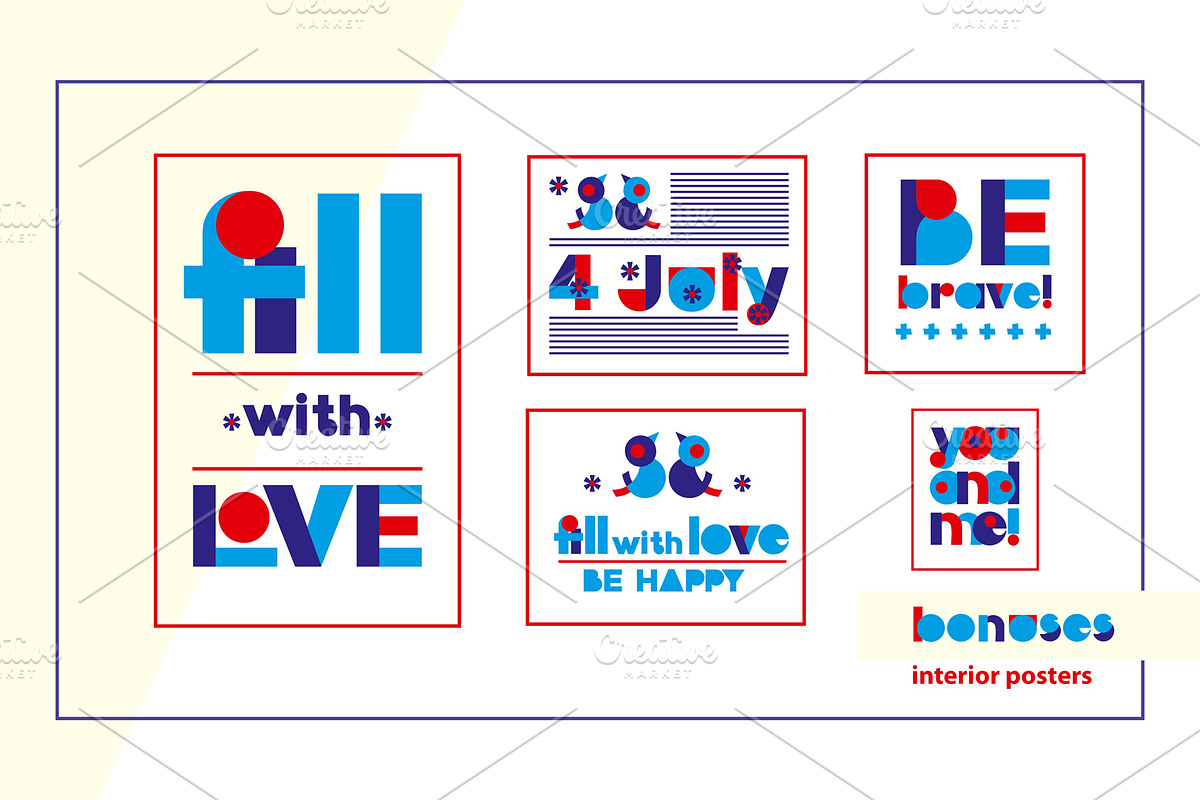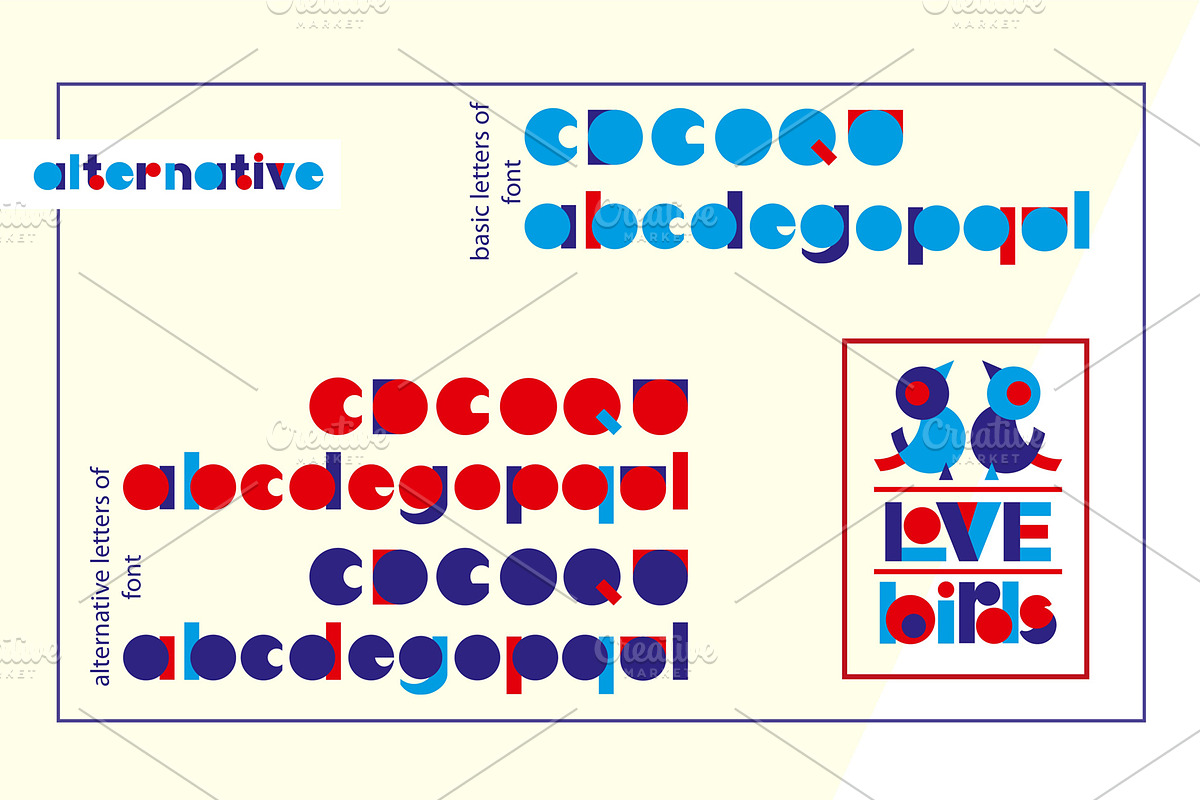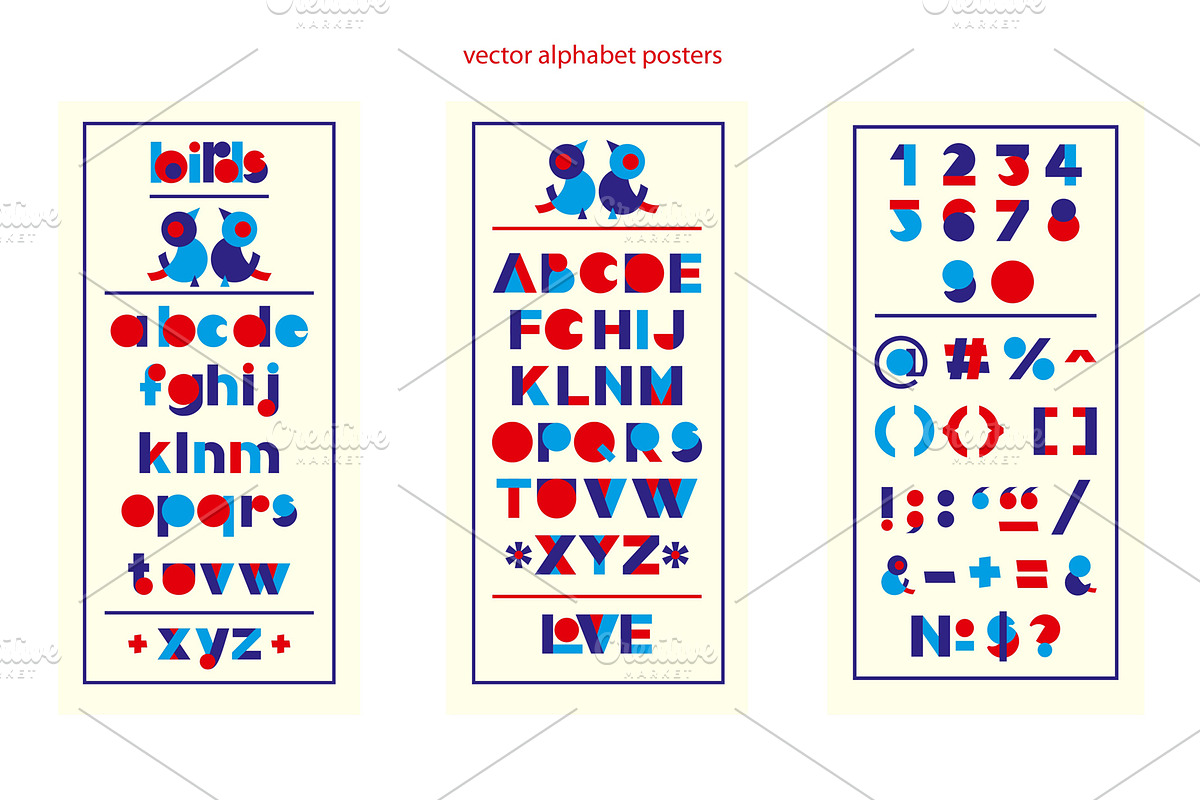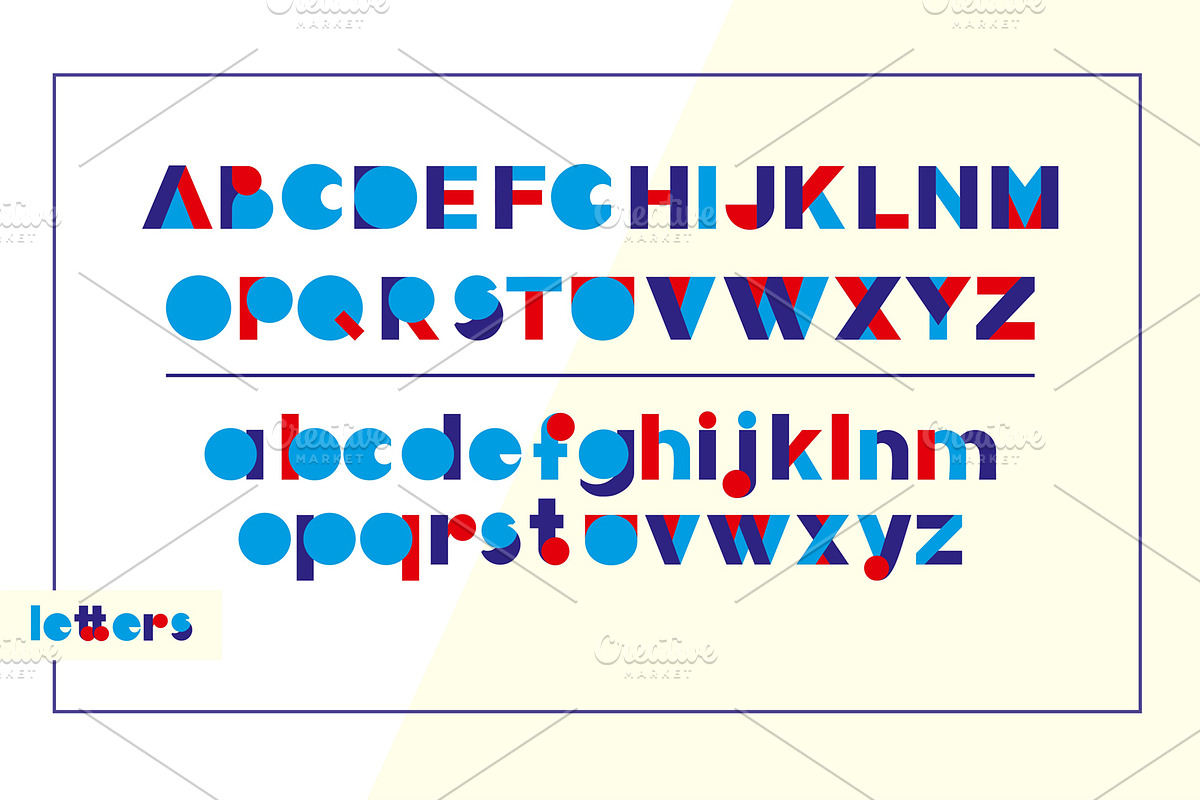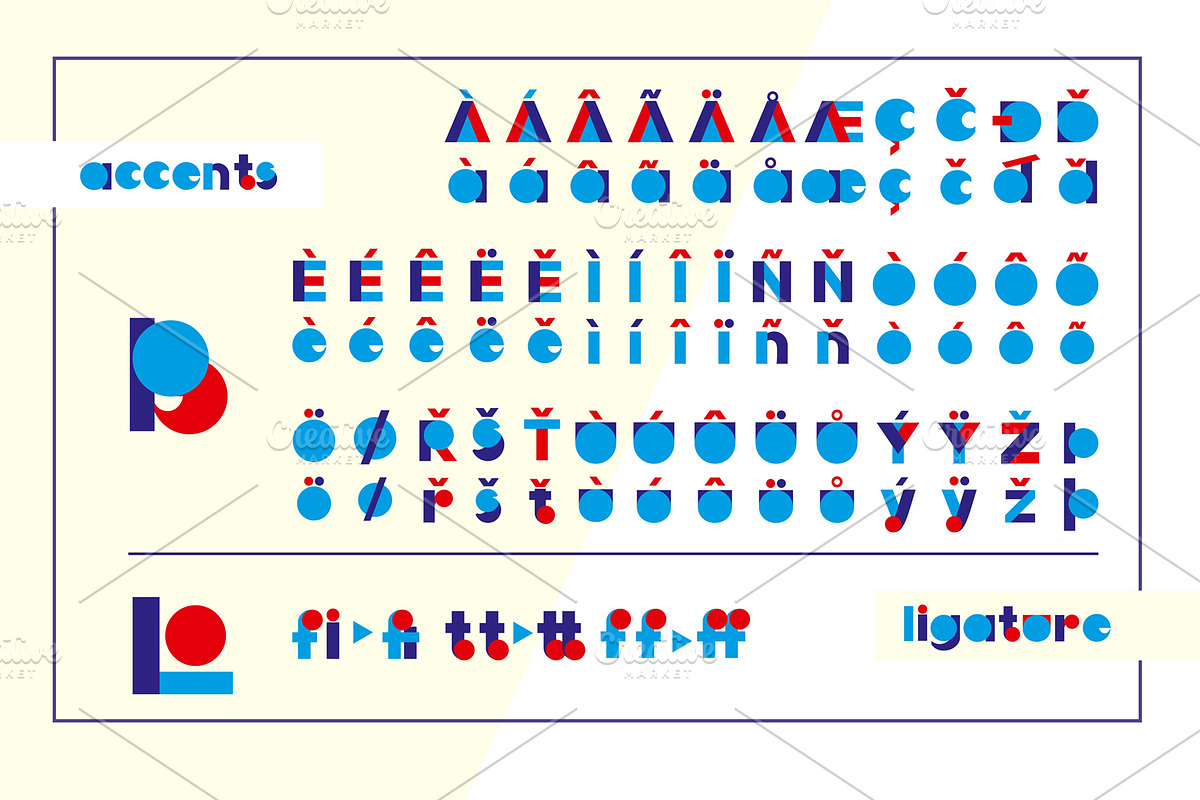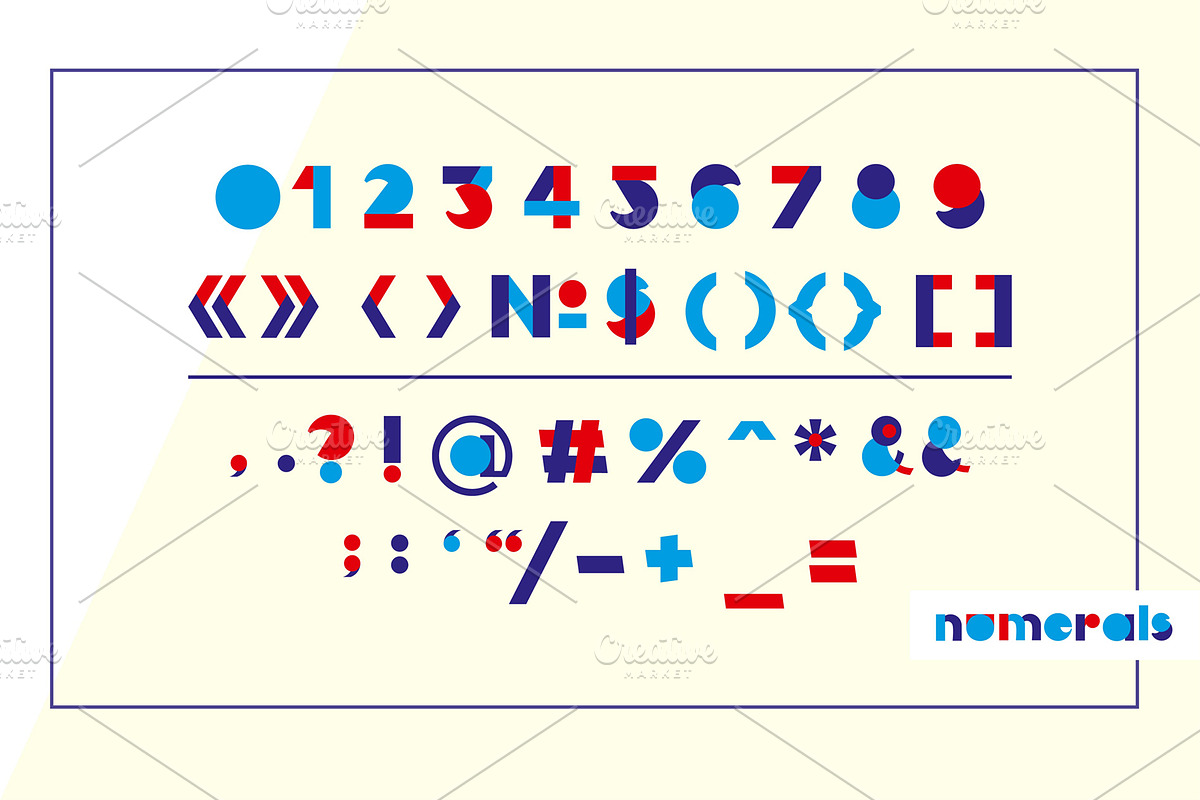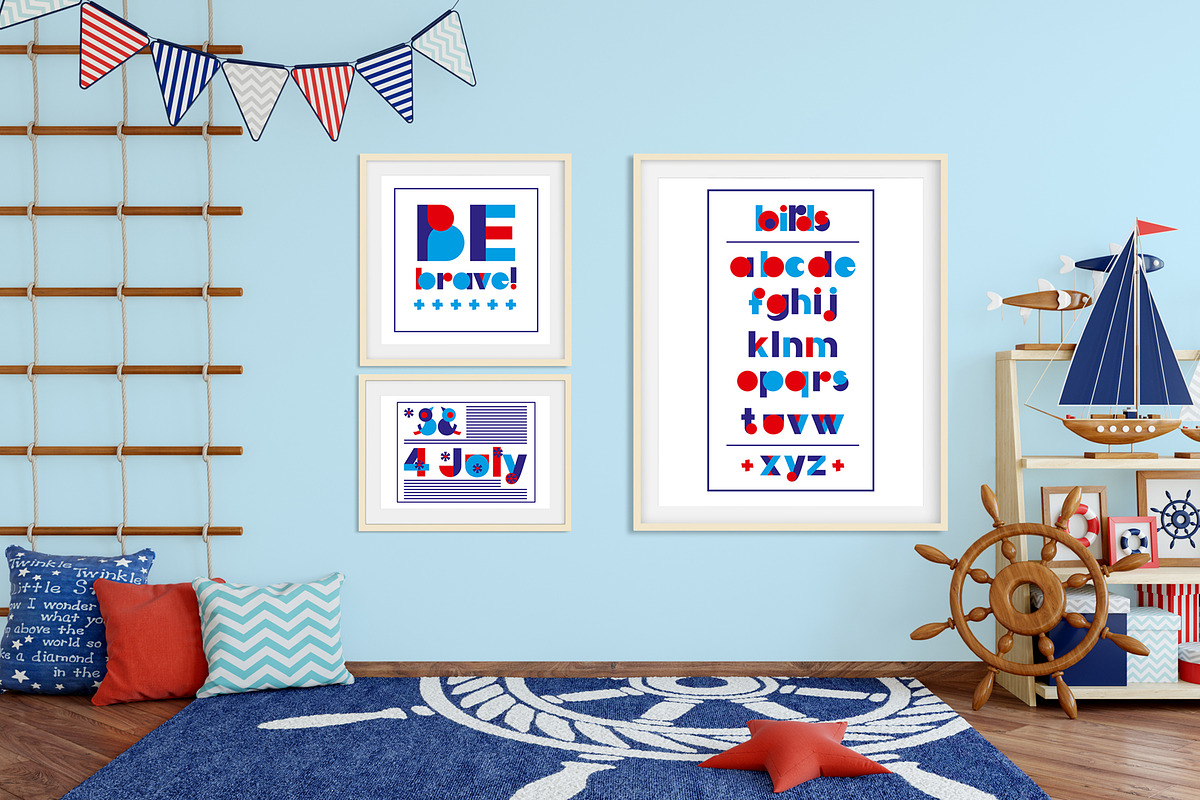
LOVE-BIRDS multicolor font
LOVE-BIRDS OTF-SVG multicolor font.
Modern display grotesque sans-serif font. You can use this font for design logos, quotes prints on t-shirts, children posters and love cards and… other.
OpenType Font was designed with Fontself Maker in Illustrator CC. Contains CAPITALS & STRINGS letters, NUMERALS & DIGITS, PUNCTUATION, ALTERNATIVE, LIGATURES, ACCENTED letters for multilingual.
Bonus:Colorful vector alphabet, numerals and digits With multicolor Vector alphabet you can manipulate letters in form of vector shapes in Illustrator i.e.